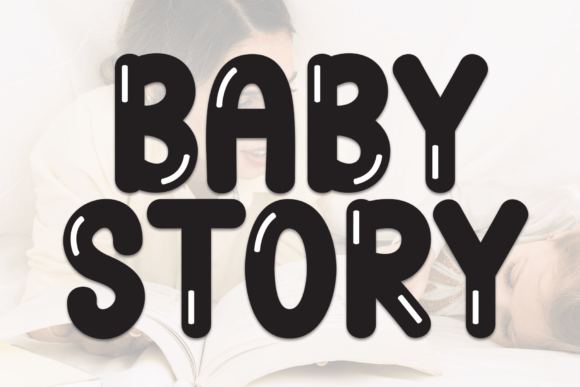
Baby Story Font: The Perfect Addition to Your Creative Projects
Are you looking for a font that can add a touch of fun and quirkiness to your designs? Look no further than the Baby Story Font! This delightful display font is perfect for crafters, designers, and anyone looking to add a personal touch to their creative projects. In this article, we’ll dive into the world of Baby Story Font and explore its features, benefits, and uses.
What is Baby Story Font?
Baby Story Font is a fun and quirky display font designed to add a playful touch to your designs. Its unique and charming style makes it perfect for a wide range of creative projects, from crafting and scrapbooking to graphic design and digital art. With its bold and eye-catching letters, Baby Story Font is sure to grab attention and make your designs stand out.
Key Features of Baby Story Font
- Unique and Quirky Style: Baby Story Font boasts a one-of-a-kind design that’s sure to add a touch of personality to your projects.
- Display Font: This font is specifically designed for display purposes, making it perfect for headlines, titles, and other prominent text elements.
- Easy to Read: Despite its playful style, Baby Story Font is easy to read and understand, making it suitable for a wide range of applications.
- Versatile: This font can be used in various creative projects, from digital designs to print materials.
Benefits of Using Baby Story Font
So, why should you choose Baby Story Font for your creative projects? Here are just a few benefits of using this delightful font:
- Adds a Personal Touch: Baby Story Font can help you add a personal touch to your designs, making them more relatable and engaging.
- Grabs Attention: The bold and eye-catching style of Baby Story Font is sure to grab attention and make your designs stand out.
- Perfect for Kids’ Projects: The playful and whimsical style of Baby Story Font makes it perfect for kids’ projects, such as children’s books, nursery decor, and kids’ party invitations.
- Easy to Pair: Baby Story Font can be easily paired with other fonts to create a unique and visually appealing design.
Uses of Baby Story Font
Baby Story Font is a versatile font that can be used in a wide range of creative projects, including:
- Crafting and Scrapbooking: Add a personal touch to your scrapbook pages and craft projects with Baby Story Font.
- Graphic Design: Use Baby Story Font in your graphic design projects, such as brochures, flyers, and posters.
- Digital Art: Add a playful touch to your digital art projects, such as illustrations and animations.
- Kids’ Projects: Use Baby Story Font in kids’ projects, such as children’s books, nursery decor, and kids’ party invitations.
Tips for Using Baby Story Font
Here are a few tips for using Baby Story Font in your creative projects:
- Use it as a Display Font: Baby Story Font is specifically designed for display purposes, so use it as a headline or title font.
- Pair it with Other Fonts: Experiment with pairing Baby Story Font with other fonts to create a unique and visually appealing design.
- Adjust the Size and Color: Adjust the size and color of Baby Story Font to suit your design needs.
In conclusion, Baby Story Font is a fun and quirky display font that’s perfect for adding a personal touch to your creative projects. With its unique and charming style, this font is sure to grab attention and make your designs stand out. Whether you’re a crafter, designer, or digital artist, Baby Story Font is a great addition to your font collection. So why wait? Add Baby Story Font to your creative projects and enjoy the results!